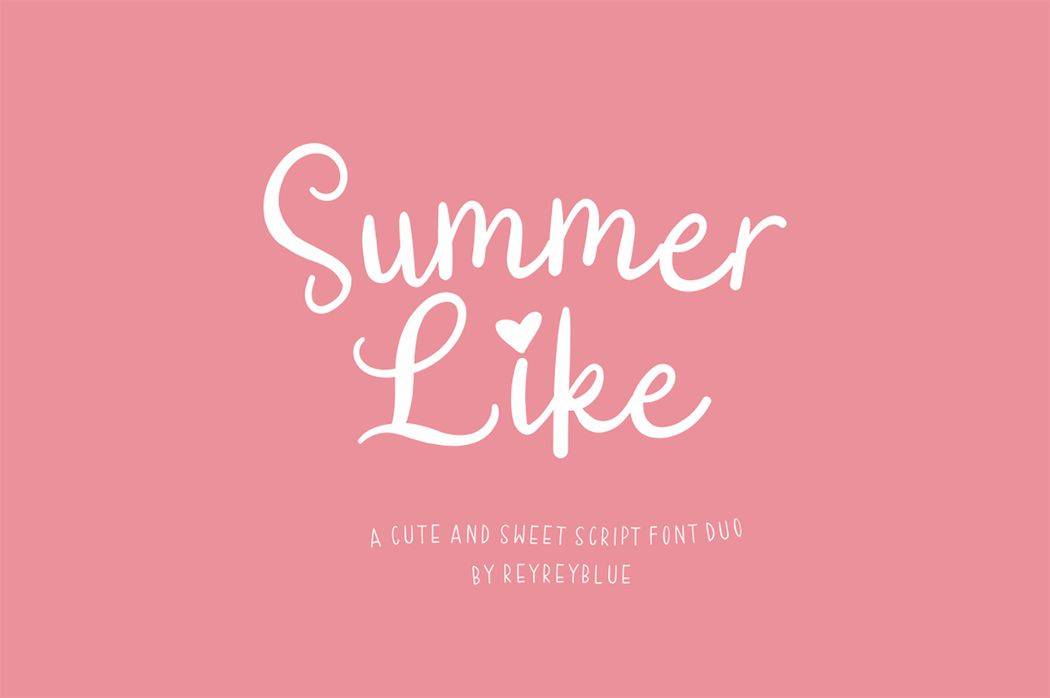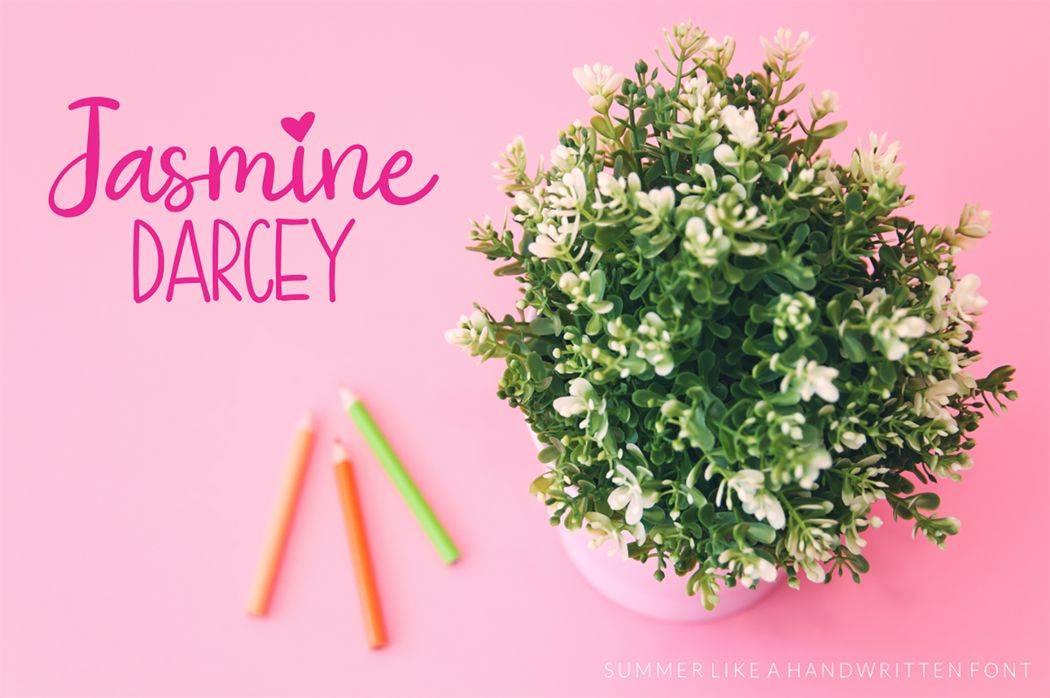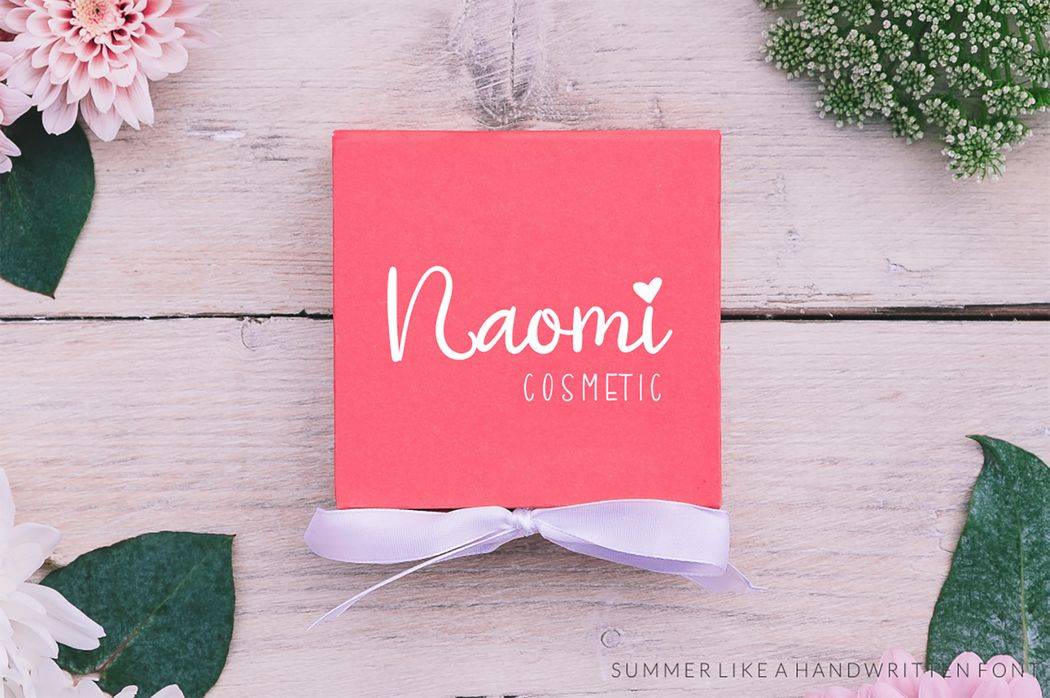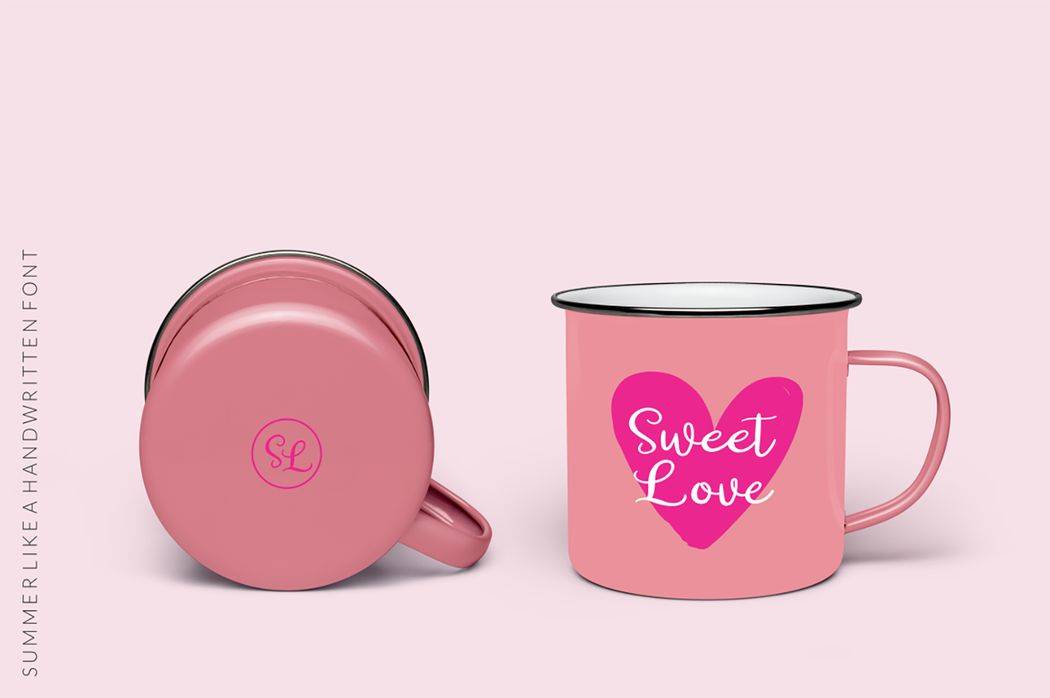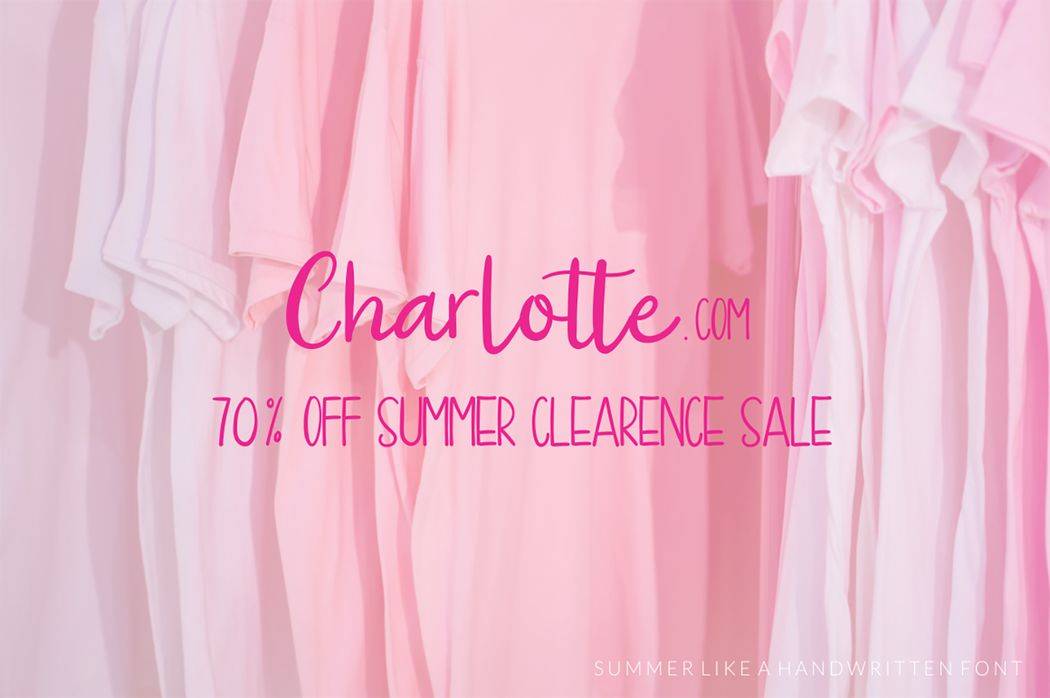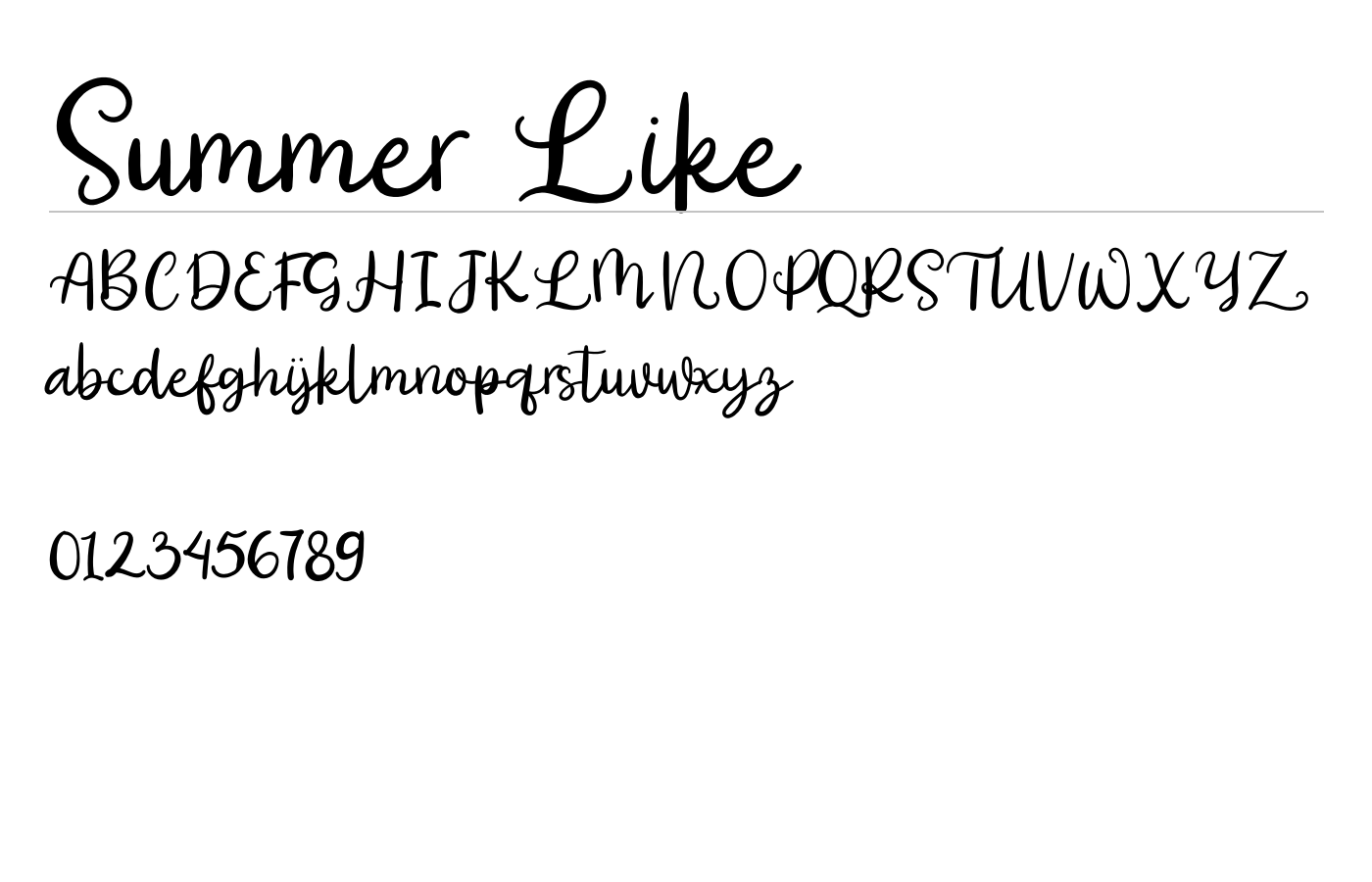
Summer Like Font Duo is a playful, casual script font paired with a quirky, hand-drawn uppercase style that feels friendly and inviting. Its light weight and smooth, flowing strokes evoke a relaxed, summer vibe perfect for creative branding, invitations, and lifestyle projects where a warm, personal touch is desired. This font works best in headlines, logos, and packaging that want to convey charm and approachability.
Summer Like Font Duo
About Summer Like Font Duo
| Font family | Summer Like Font Duo |
| Designer | Risca Anitawati |